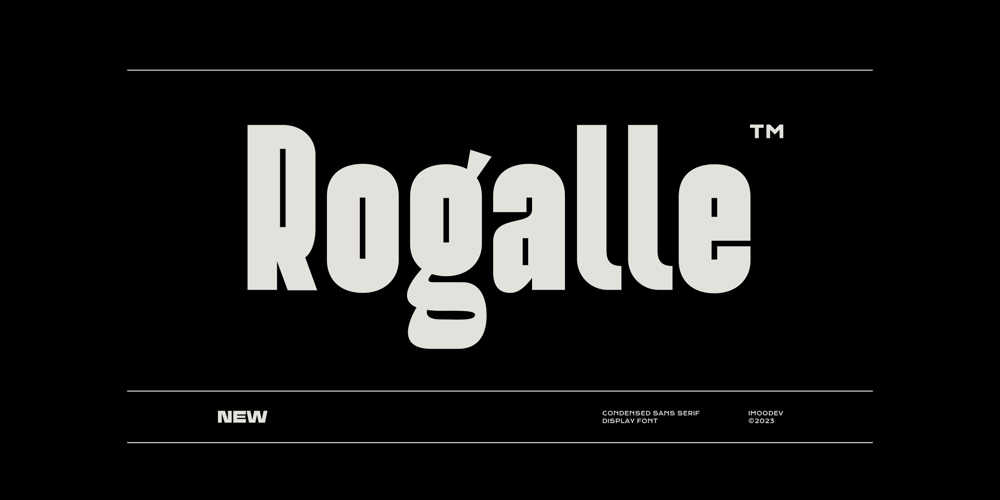
Rogalle Font Family was designed by Aulia Savira Putri and published by Imoodev. Rogalle contains 1 styles and family package options. Rogalle is a condensed sans serif display font that has smooth curves and a visual style a can embodies charm and elegance in every lettering, making your work look stunning and attractive, a versatile font that works in both uppercase and lowercase sizes, suitable for a wide variety of projects such as a display font for headings, logo fonts, invitations, branding, book covers, magazine layouts, card, product packaging, product mockup, mugs, posters, labels, editorials, art deco, and any type of advertising purpose.